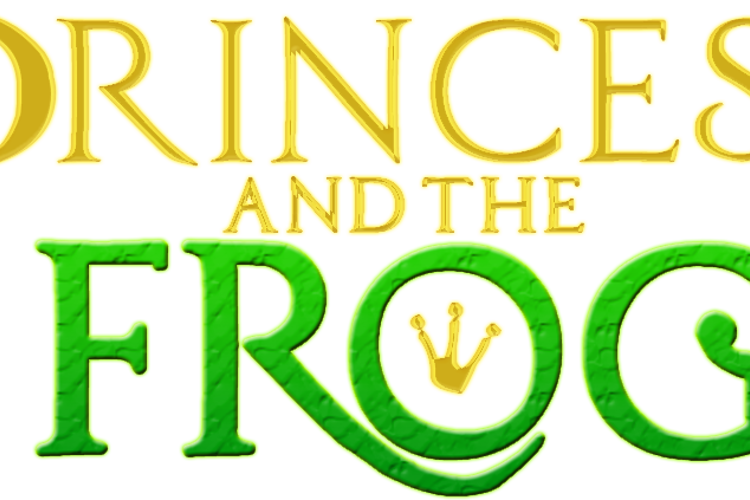
PrincesS AND THE FROG Font
Princess and the frog font inspired
almost 15 years agoVery regal!
almost 15 years agovery cute! C{:
14 years agoThis is really nice.
almost 14 years agohaixst!!! this is cute
almost 13 years agorly cute and kool 😄
11 years agoSo cute!
8 years agoI love this font. Are there any complementary fonts you would recommend using with this font in flyers, etc.?